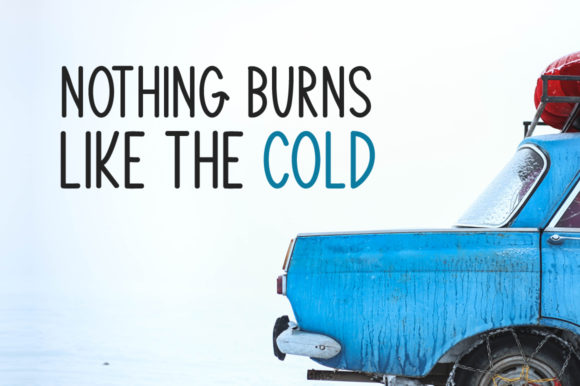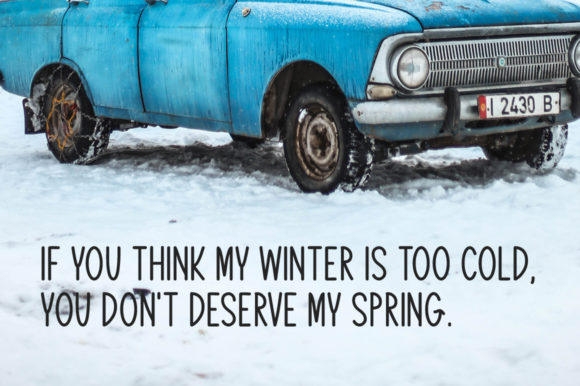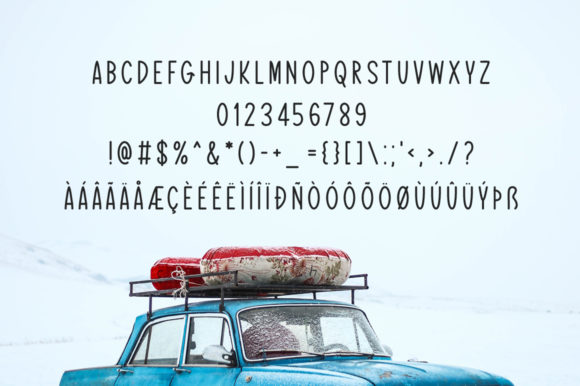
HomeScript FontsWinter Morning Font Script Fonts Winter Morning Font FacebookXPinterestWhatsApp Winter Morning Font Poster 2 Winter Morning Font Poster 3 Winter Morning Font Poster 4 About Winter Morning Font Winter Morning is a cool and fresh script font that will elevate any winter-themed craft! DOWNLOAD ON CREATIVE FABRICAThis font is sold and delivered by Creative Fabrica. Font Canyon may earn a commission if you buy through this link. People also explored Angellina Font December Brush Font Prose Font Another Birdhouse Font Night Mares Font Steel Hammer Font Booster Font Zalika Font Olived Font 281 0 TagsWinter Morning Font Previous articleBreethy FontNext articleMenghan Markle Script Font LEAVE A REPLY Cancel reply Comment: Please enter your comment! Name:* Please enter your name here Email:* You have entered an incorrect email address! Please enter your email address here Website: Save my name, email, and website in this browser for the next time I comment. Personal Use Free Scoothlane Personal Use Free Read more about this font Doriss Girls Family Personal Use Free Read more about this font Stone Garden Personal Use Free Read more about this font Ardilla Font Personal Use Free Read more about this font BLOG Exploring Font Trends Shaping Communication in the Digital Era Fonts, like all design elements, are subject to trends. They play a crucial role in communicating a brand's personality,... Best Fonts for T-Shirt Design – Top 2025 Picks How to Cut Any Font on Cricut: Convert a Font to SVG (Free) Free Fonts Risk: Why Free Fonts Can Be Dangerous for Designers